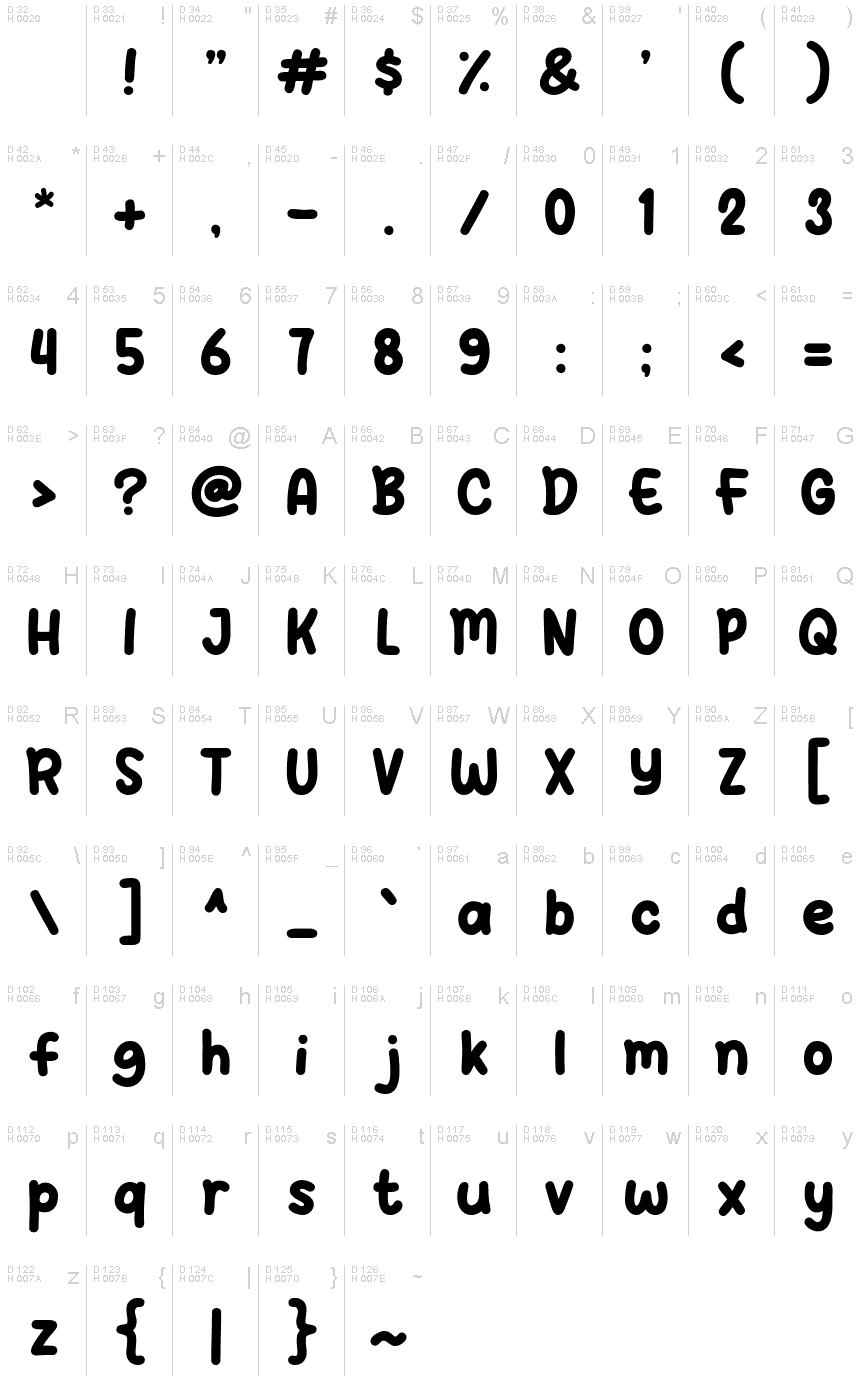
Boba Milky
Looking for a fun and playful font that's perfect for your next creative project? Look no further than Boba Milky, the new display font from Khurasan. With its bold, cartoon-style lettering and handwritten touch, this font is perfect for a wide range of projects, from children's books and comics to logos and branding materials. Whether you're looking to add some personality to your designs or simply want a font that stands out from the crowd, Boba Milky is sure to deliver. So why wait? Start exploring all the possibilities of this fun and versatile typeface today!